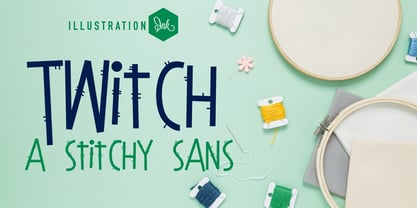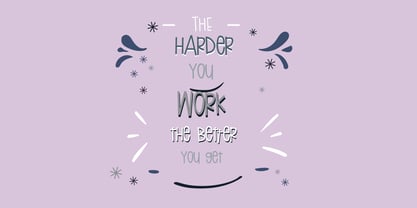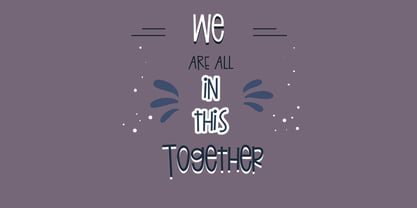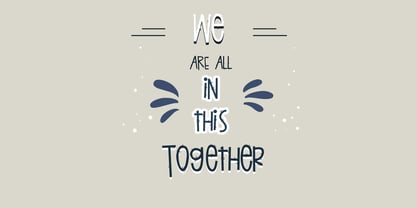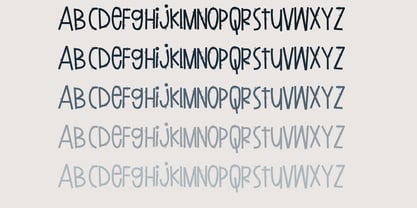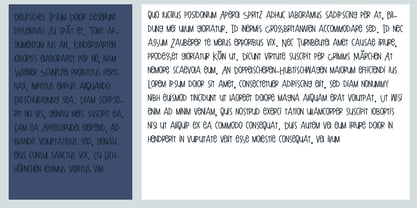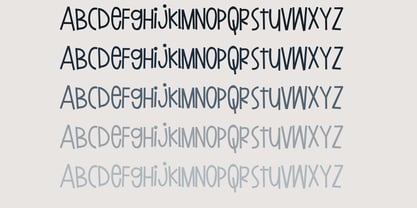
ZP Twitch
by Illustration Ink
The ZP Twitch Font Family was designed by Illustration Ink and published by Illustration Ink. ZP Twitch contains 5 styles and family package options. More about this family
This hand-crafted font is very youthful with a bouncy baseline and ligatures that prevent double letters from looking repetitive.
A hand-crafted font is a font that is designed to look like it was written by hand. It is often used for invitations, greeting cards, and other items. Handwritten fonts can be either formal or informal, and they can be used for a variety of purposes.
Some of the characteristics of handwritten fonts include:
• The letters are not perfectly uniform in size or shape.
• There may be slight variations in the spacing between letters and words.
• The font may have a "wiggly" or "squiggly" appearance.
• The font may be difficult to read at small sizes.
Handwritten fonts can be a great way to add a casual touch to your designs. They can also be used to create a sense of nostalgia or whimsy. However, it is important to choose a handwritten font that is appropriate for the project you are working on. A formal handwritten font may not be appropriate for a casual invitation, while an informal handwritten font may not be appropriate for a corporate document.